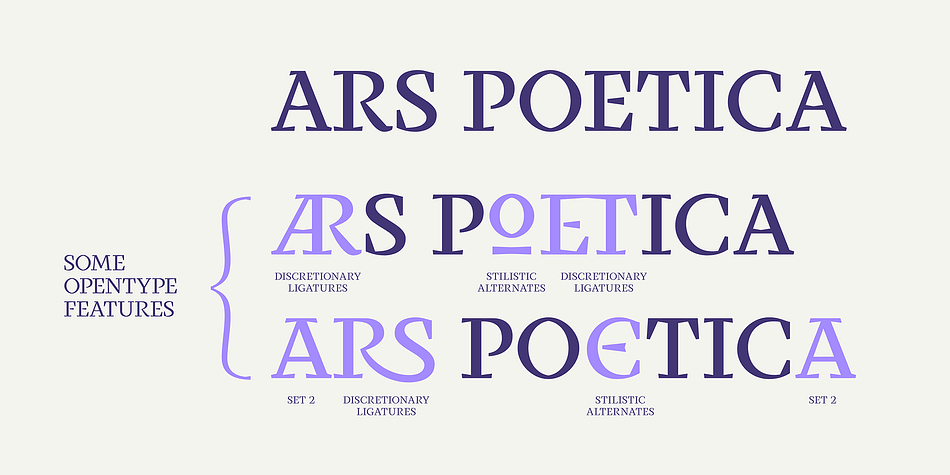
SEFERIS
Designed by Alejandro Paul and Edwin Balladares, Seferis is a display serif font family. This typeface has six styles and was published by Sudtipos.
«Seferis» is an uppercase typeface with a wide repertoire of ligatures, stylistic alternatives, and some swashes. It also has an important language coverage based on Latin.
Although the «Seferis» family is mainly influenced by the classical imprint of the incised typefaces, its structure, proportions and aesthetic proposal show modern features, which give it elegance, sophistication, inner strength and an epic character.
Designed by Edwin Moreira, with the invaluable support of Ale Paul in the expansion and production of the family.
Seferis works perfectly in spaces as diverse as posters, logos, magazine headlines, album and book covers, packaging and many other environments where it can highlight its qualities.